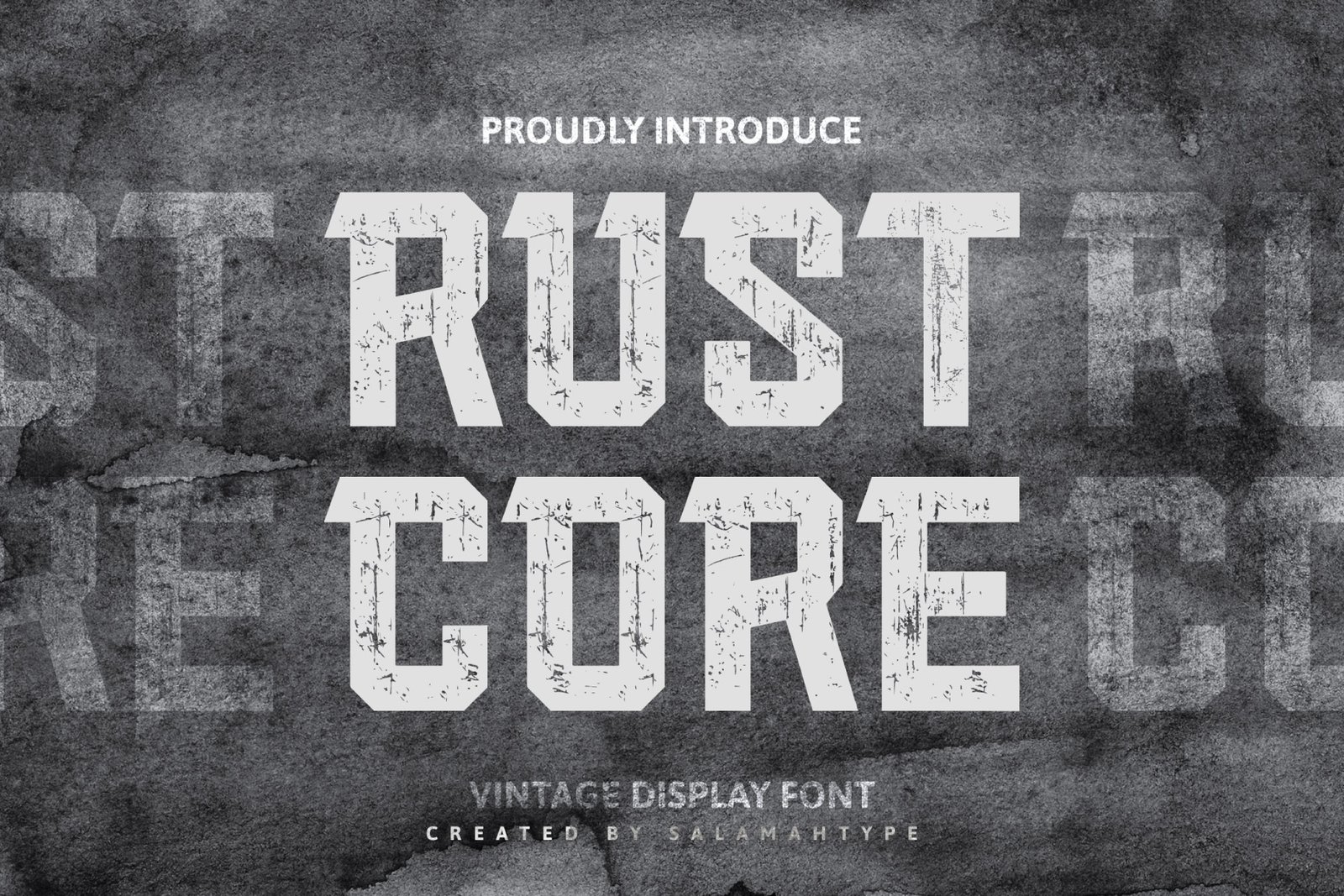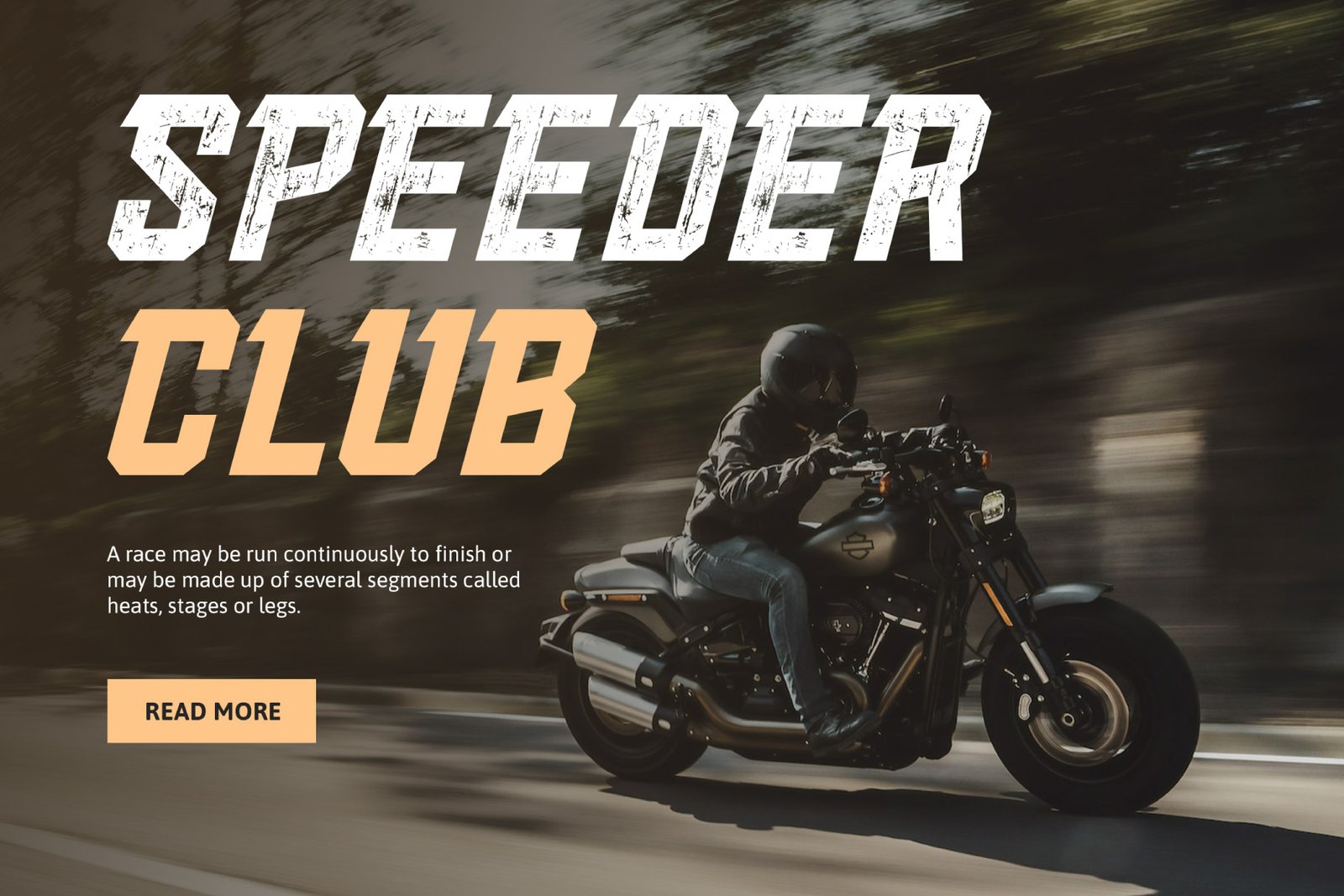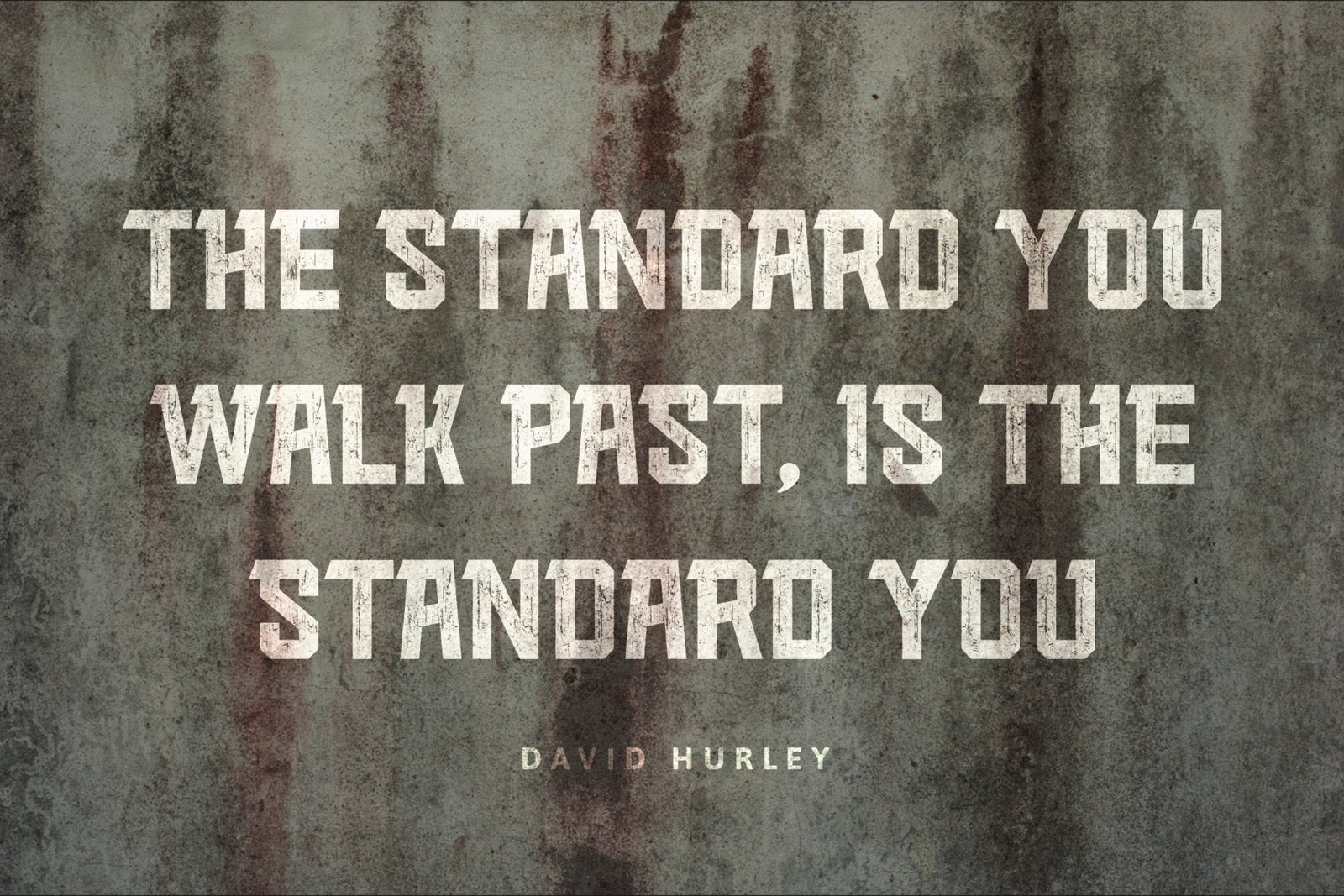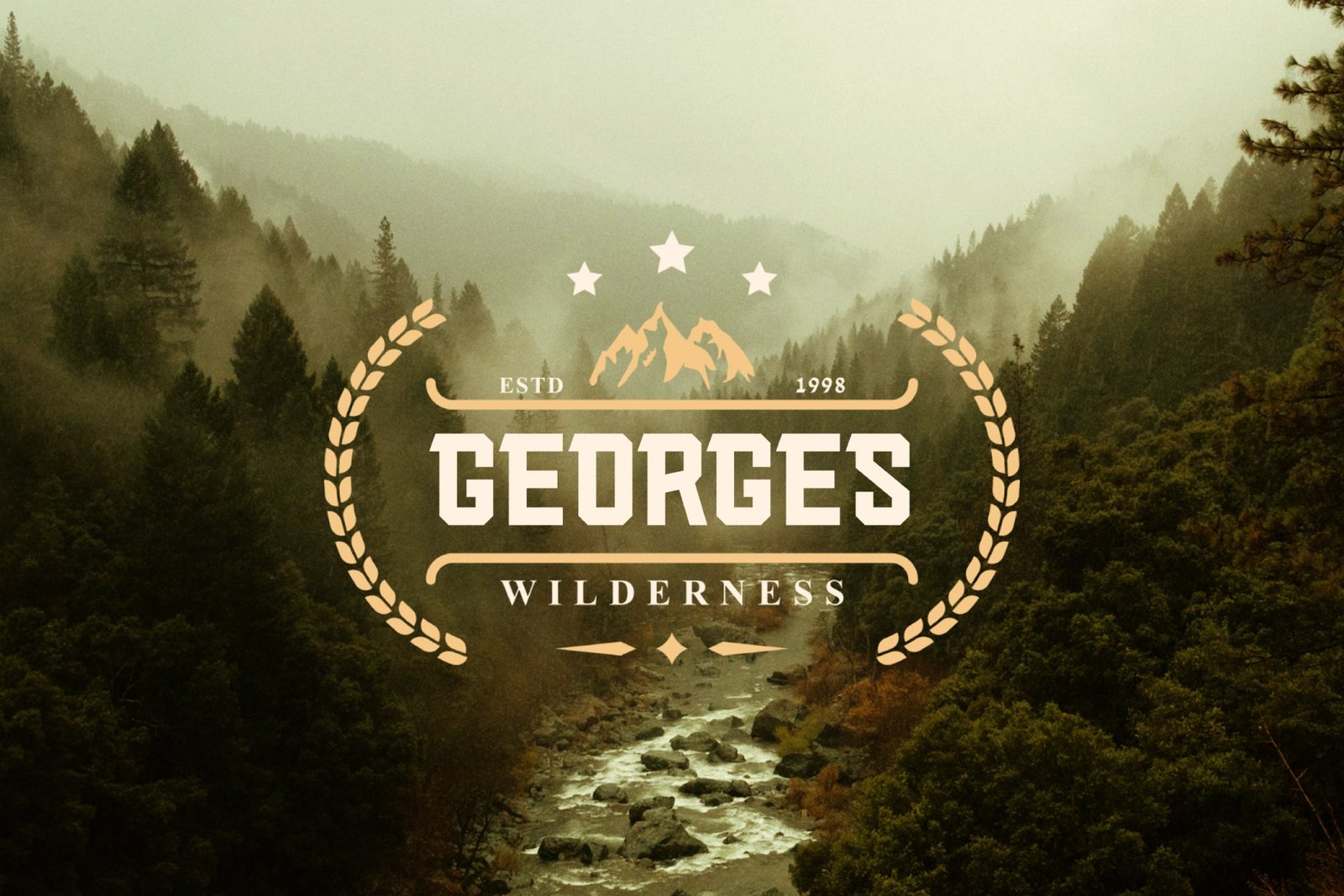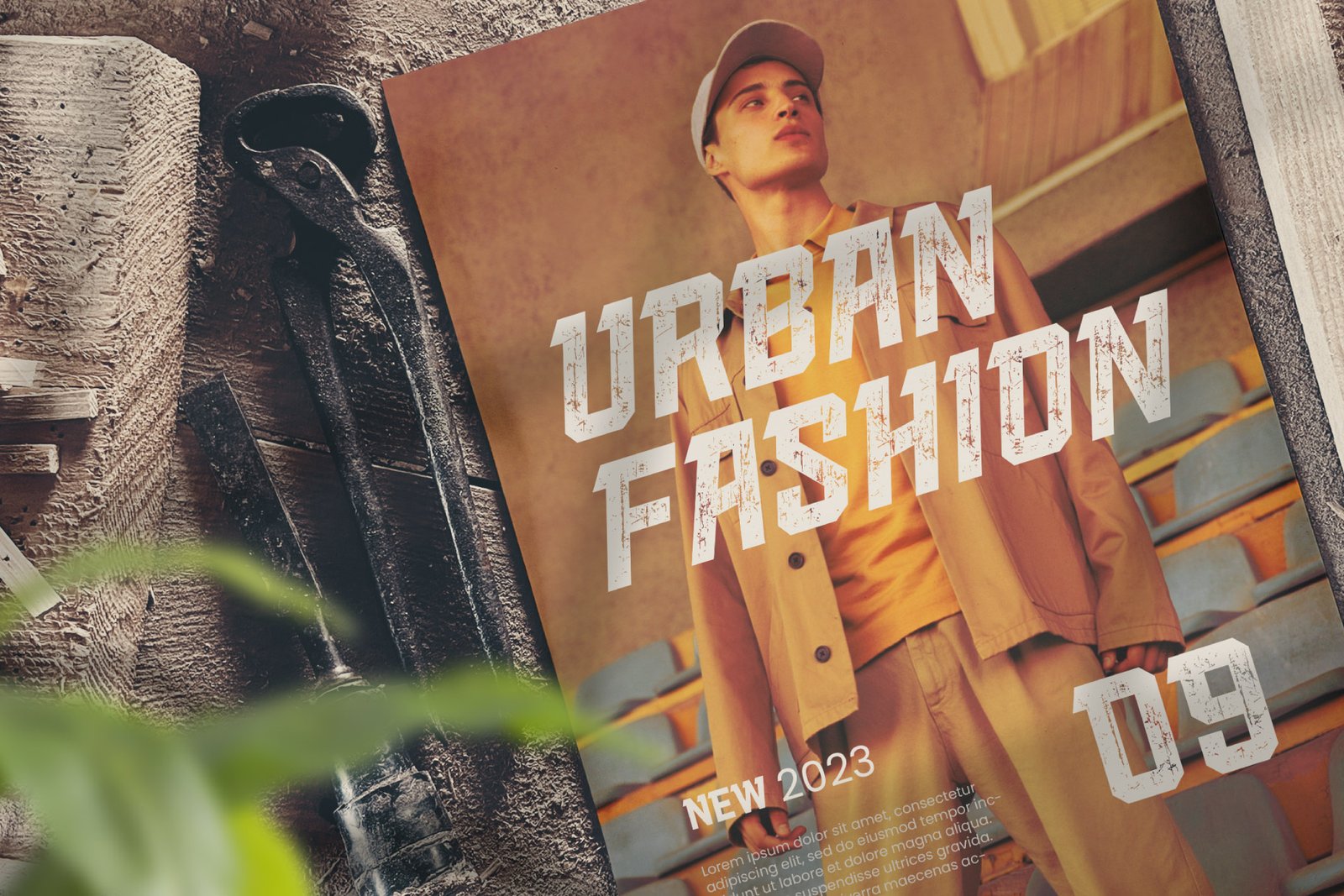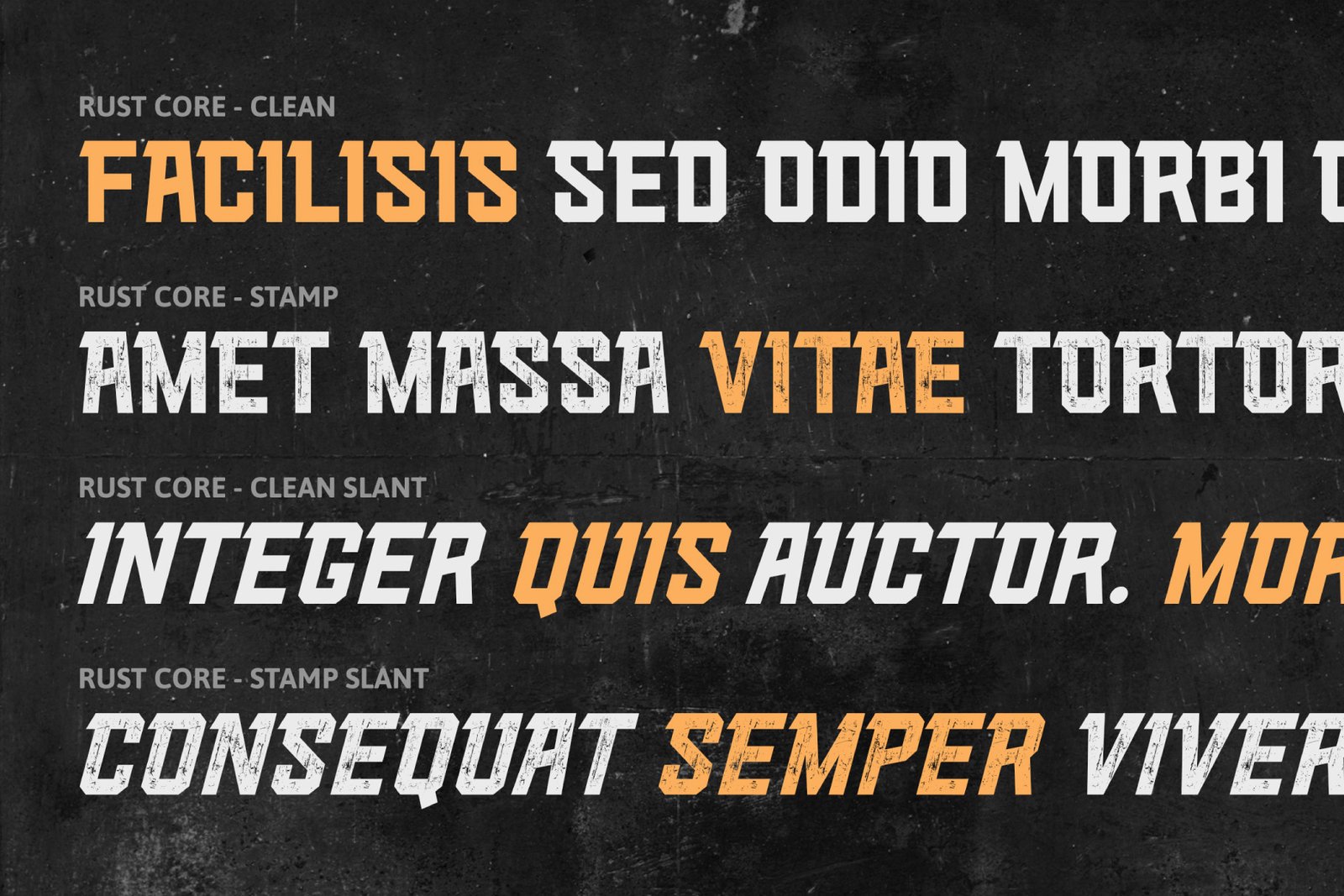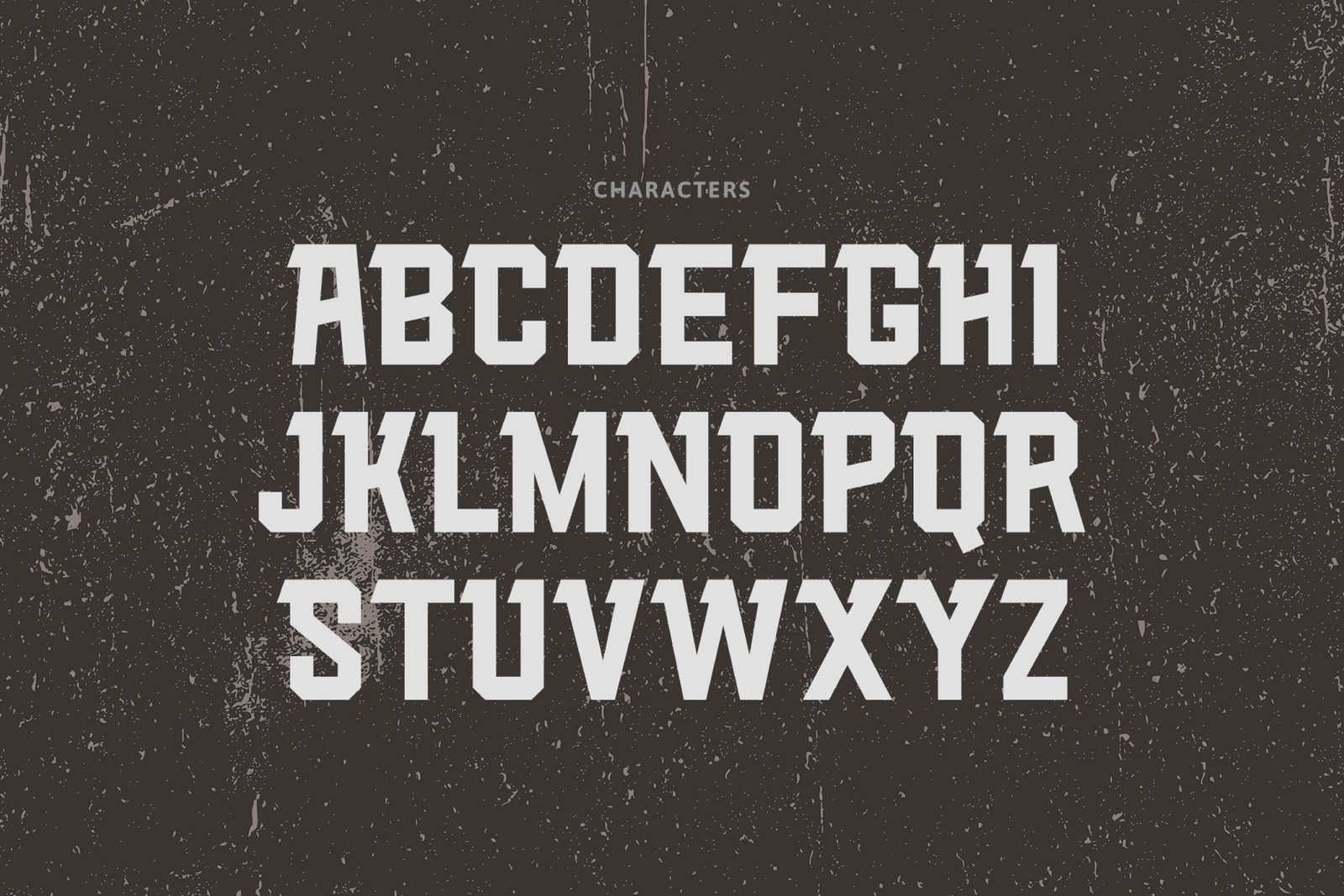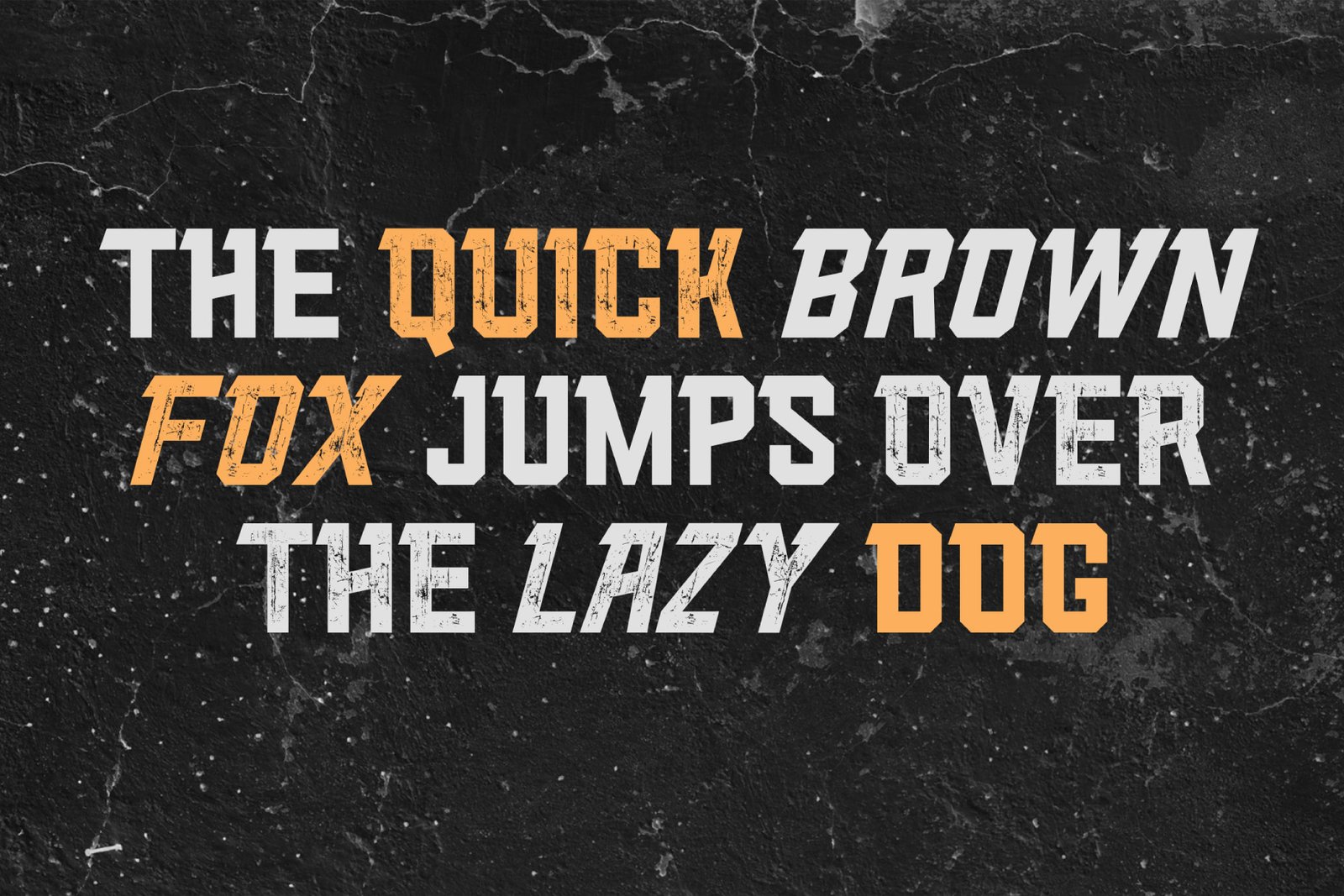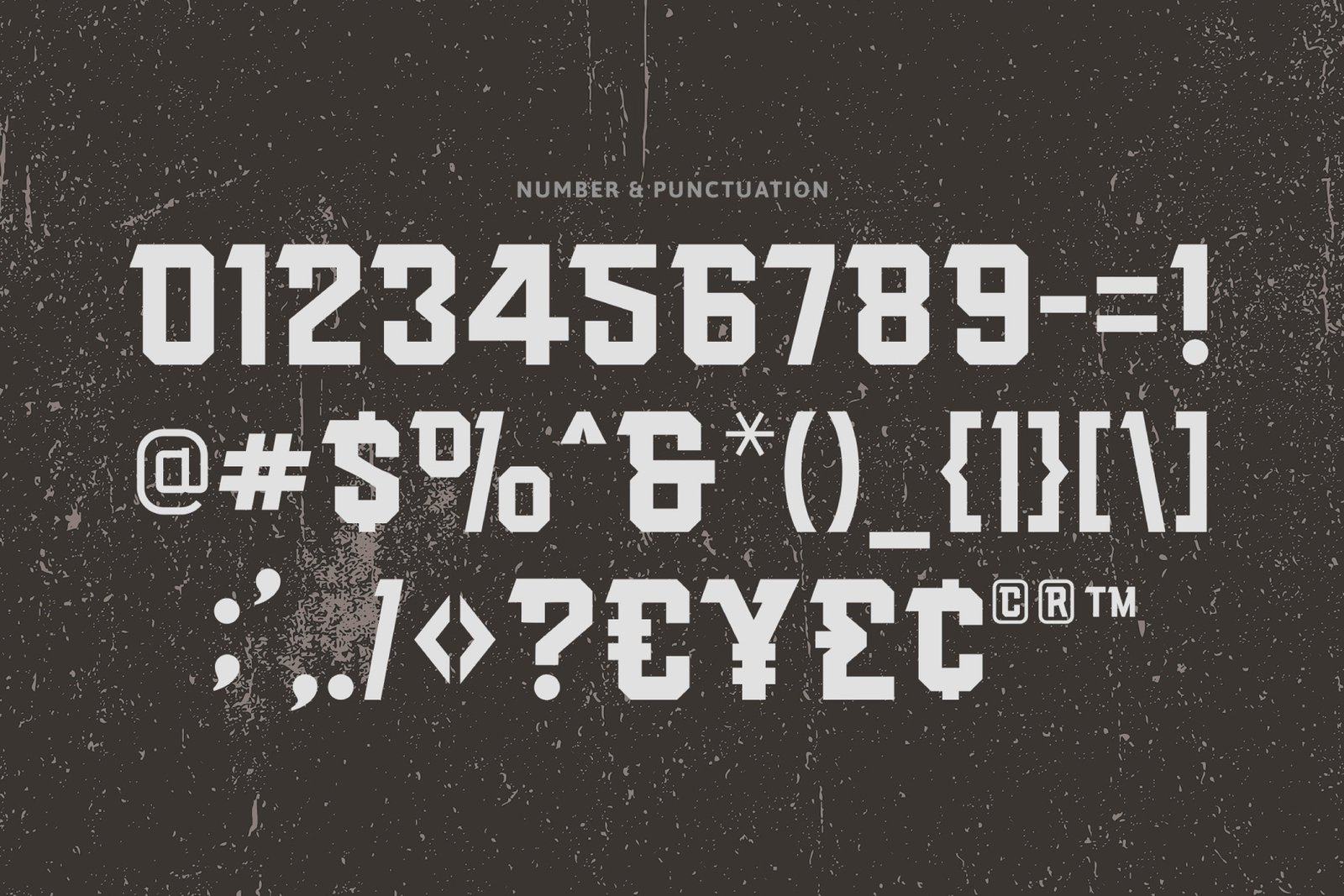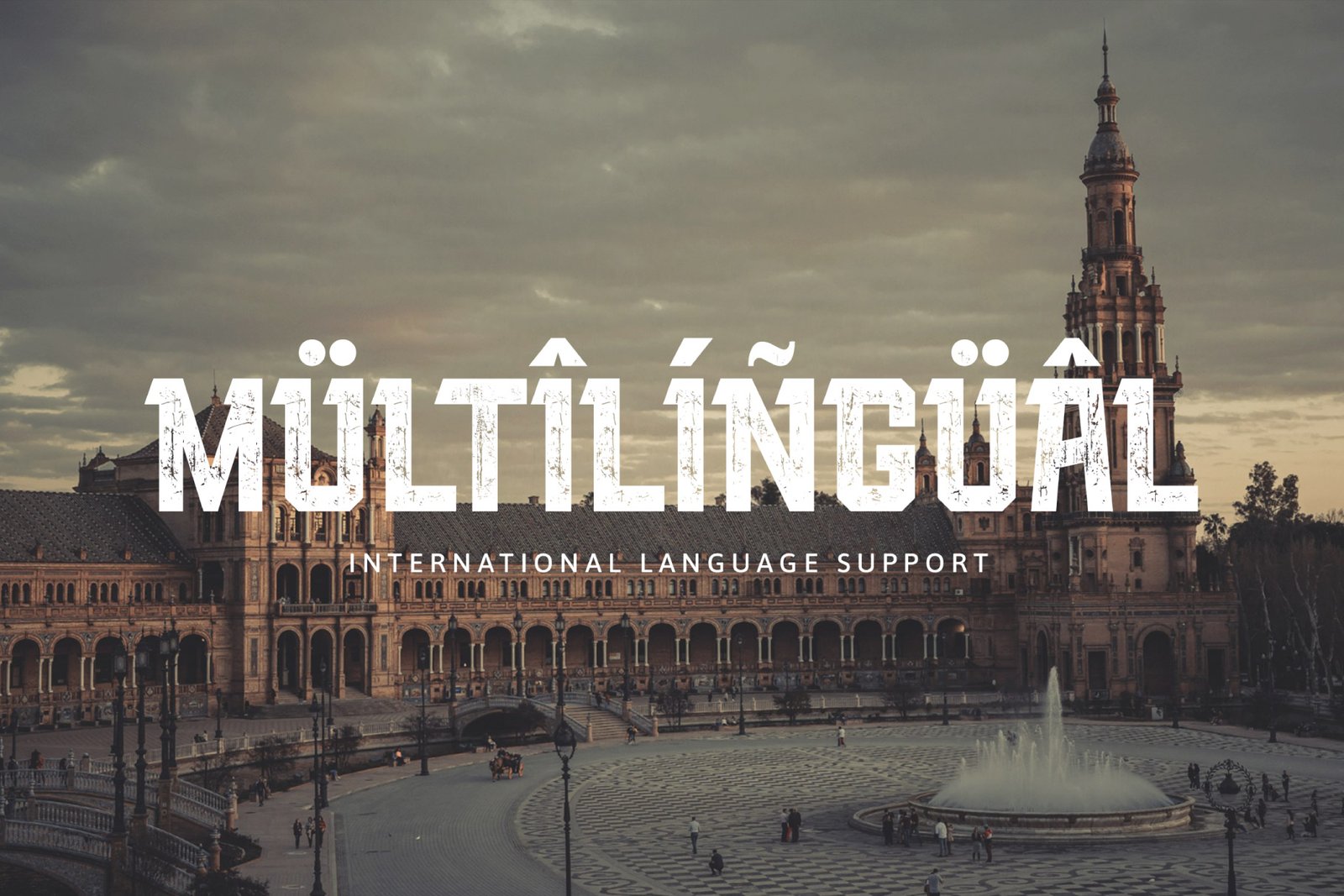
- Rust Core – Display Font
Rust Core – Bold Display Font with Textured & Clean Styles
Introducing Rust Core, a bold display typeface featuring a rugged and industrial look inspired by raw, weathered textures. This font family includes 4 distinctive styles — Clean and Stamp/Textured — giving you flexibility to create designs that are powerful, cool, and full of character.
With its authentic rust-like texture, Rust Core is perfect for branding projects, logos, labels, packaging, posters, and apparel designs that need a strong and gritty vintage touch.
Features:
4 Styles (Clean & Stamp/Textured)
A–Z All Caps Characters
Numbers, Symbols & Punctuation
Multilingual Support
Make your design stand out with Rust Core — a bold and textured font that adds personality and strength to any project.